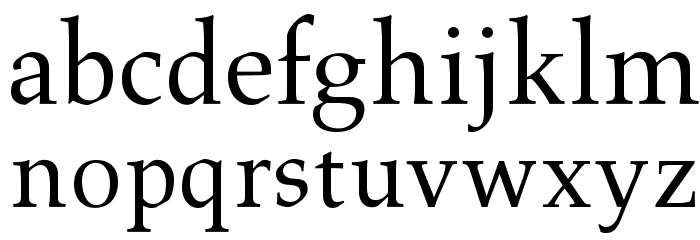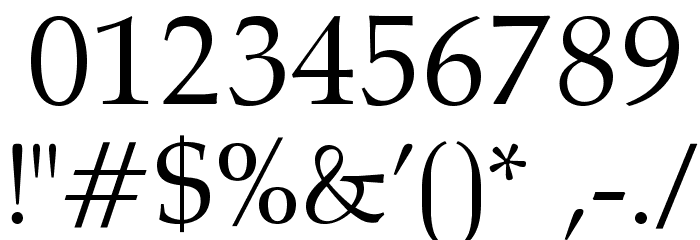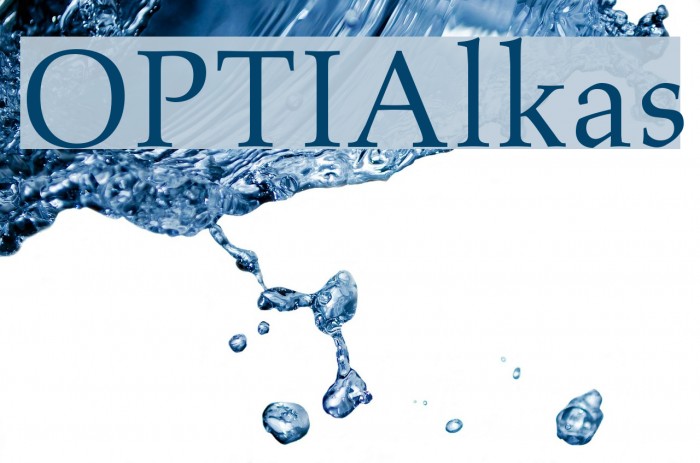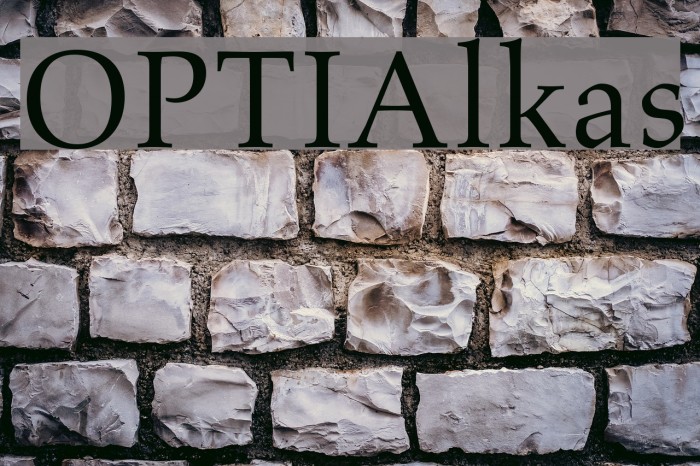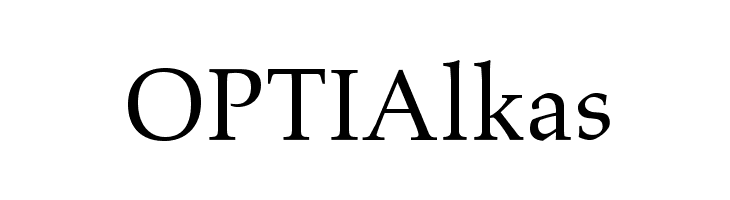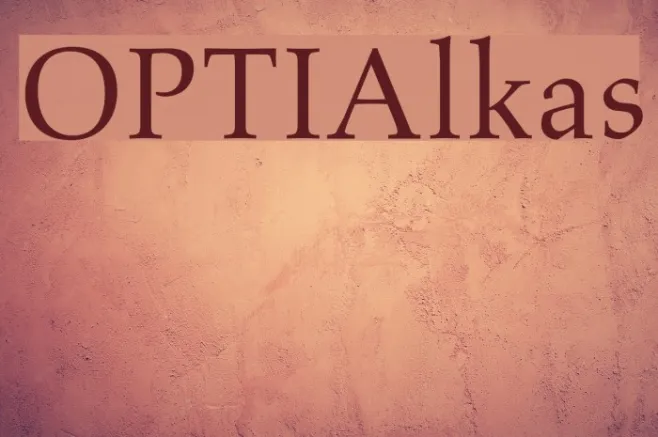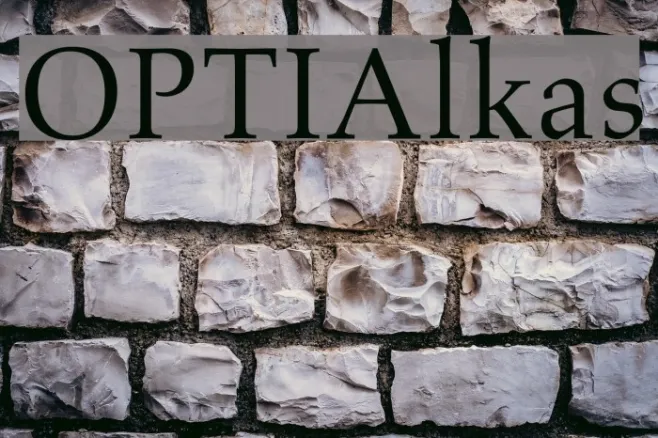
OPTIAlkas Font
This font exhibits a classic serif style with elegant and refined strokes. The characters feature distinct serifs that add a touch of sophistication and formality. The uppercase letters are slightly taller than the lowercase, providing a balanced and harmonious appearance. The numerals are clear and legible, making them suitable for various applications. Special characters are well-defined, maintaining the font's overall aesthetic. The font's design is versatile, suitable for both digital and print media, offering a timeless appeal that can enhance the readability and visual appeal of any text.
A classic serif font with elegant strokes and refined serifs.
- Proposed Projects: Ideal for book covers, formal invitations, editorial layouts, and branding materials.
- Category: Serif
- Overall Style: Classic